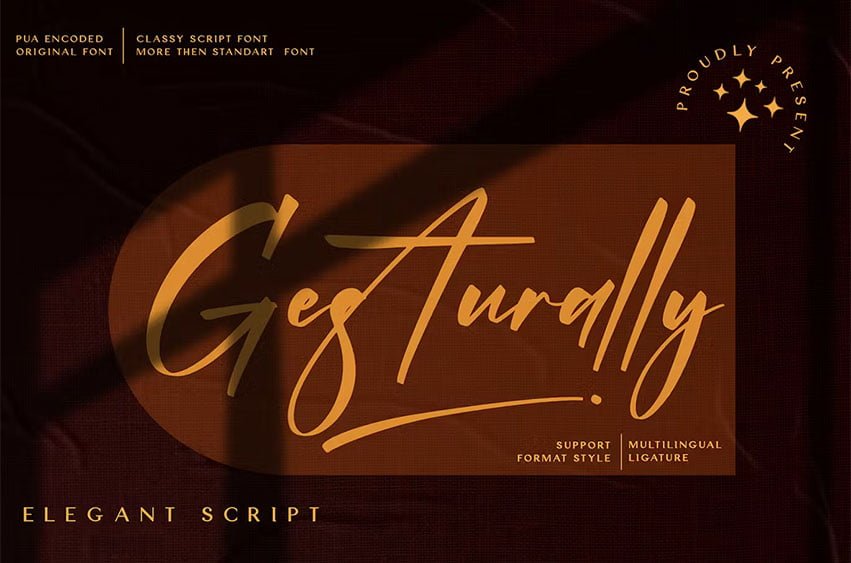
Gesturally Font
Gesturally Font is a lovely and timeless handwritten font. It is the best choice for creating eye catching design and quotes. Every letter has a unique and beautiful touch, which will make your design come alive!